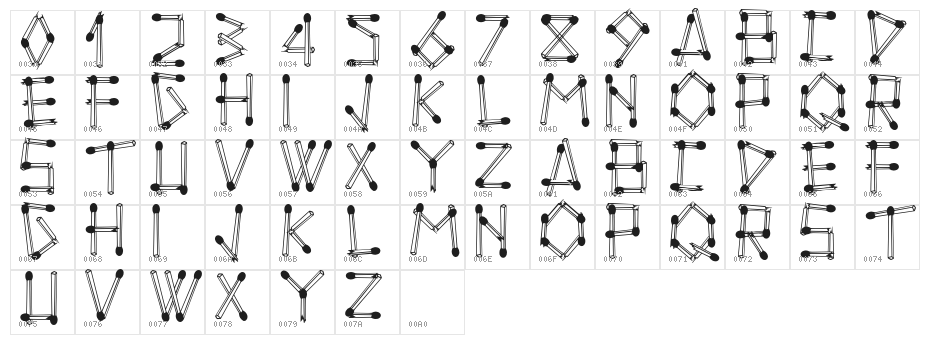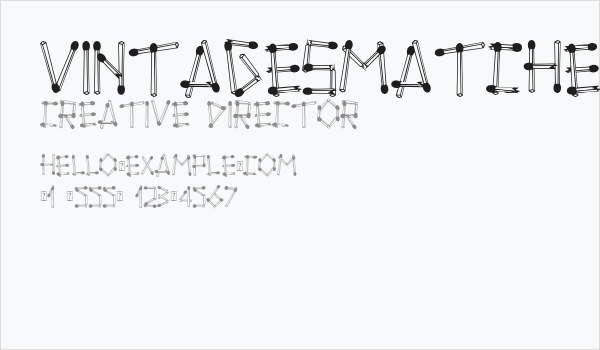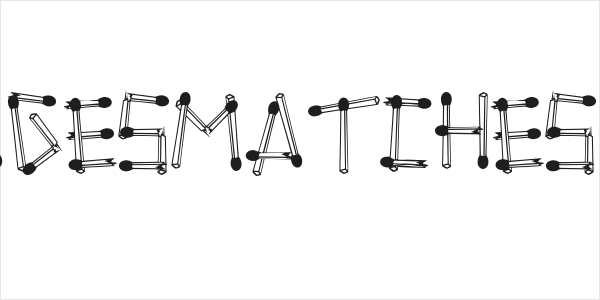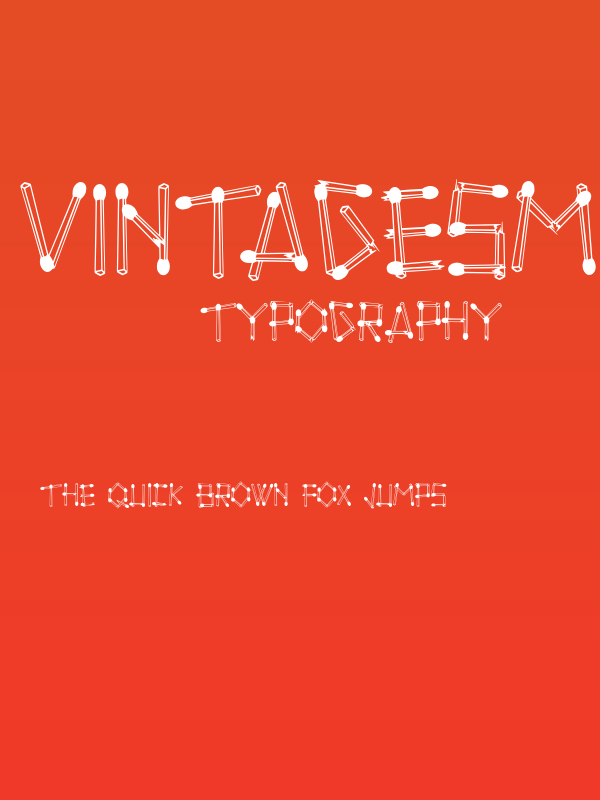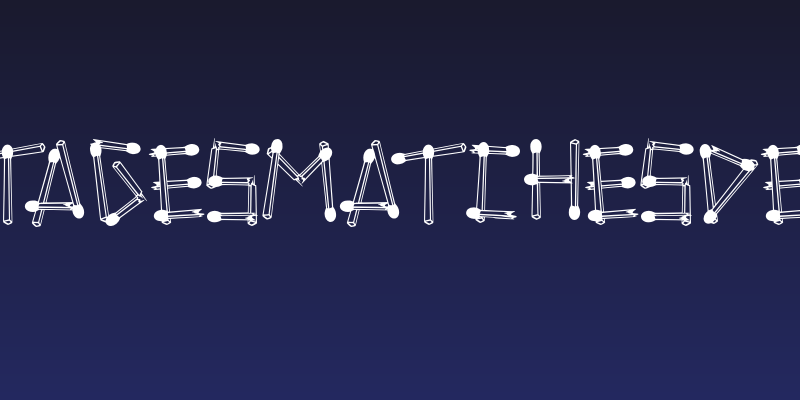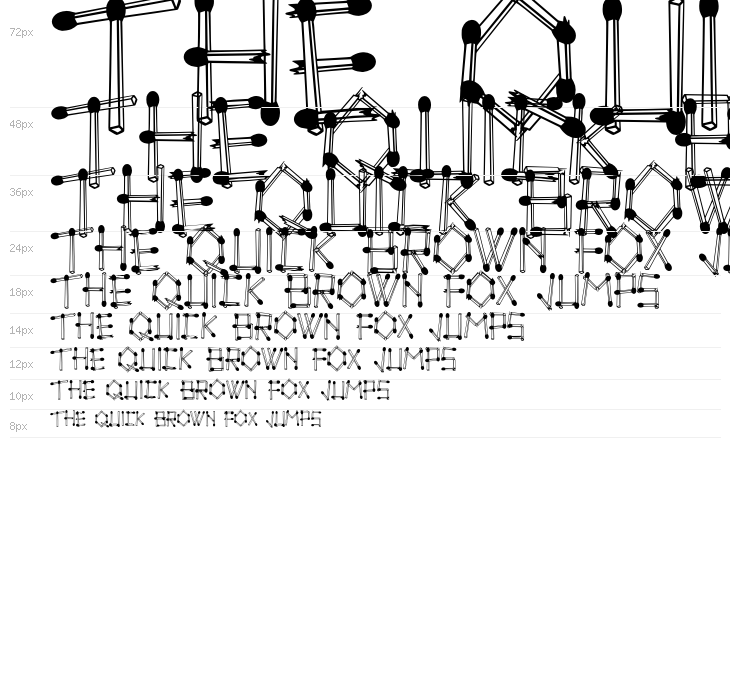
VintagesMatchesDemo Font
VintagesMatchesDemo Description
This font features a unique and playful design, with each character constructed from matchsticks. The letters and numbers are formed by arranging matchsticks in a way that mimics traditional letter shapes, giving it a distinctive and creative appearance. The matchstick heads add a bold, rounded accent to each character, enhancing the playful and informal style. This font is highly decorative and stands out due to its unconventional design, making it ideal for projects that require a fun and eye-catching typeface.
| Proposed Projects | Ideal for creative projects such as posters, children's books, party invitations, and any design that seeks a whimsical and unique touch. |